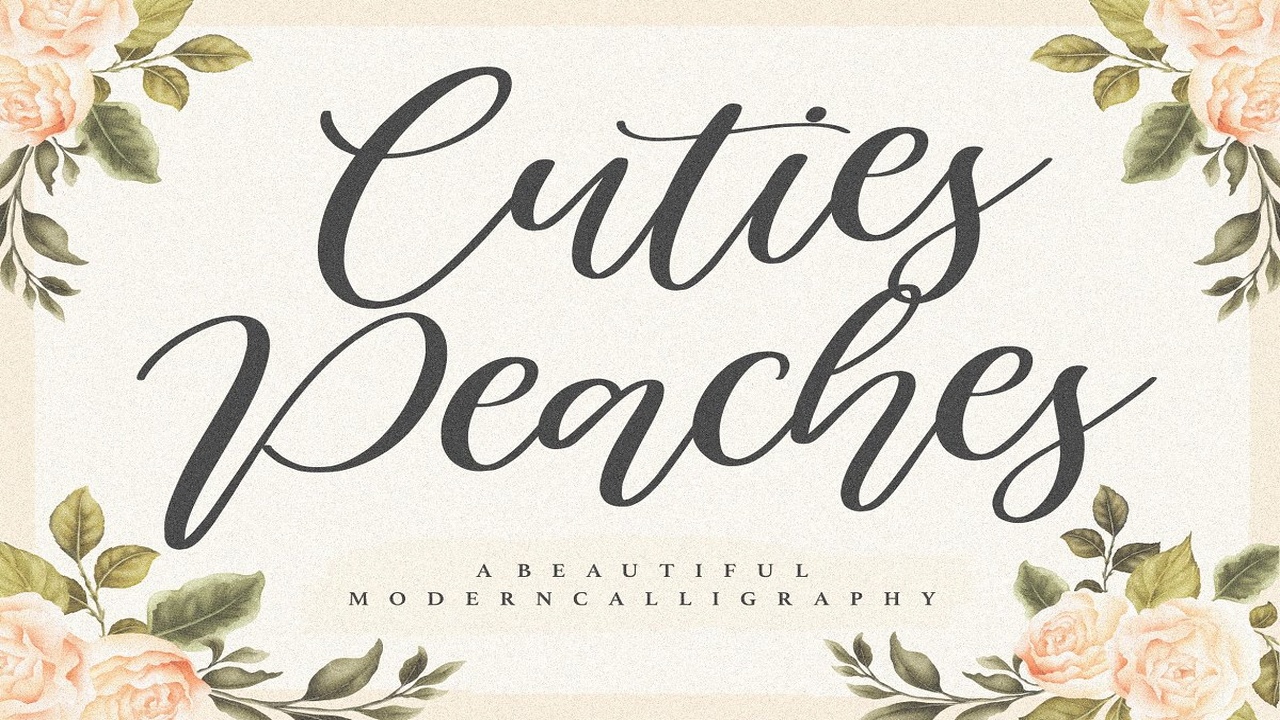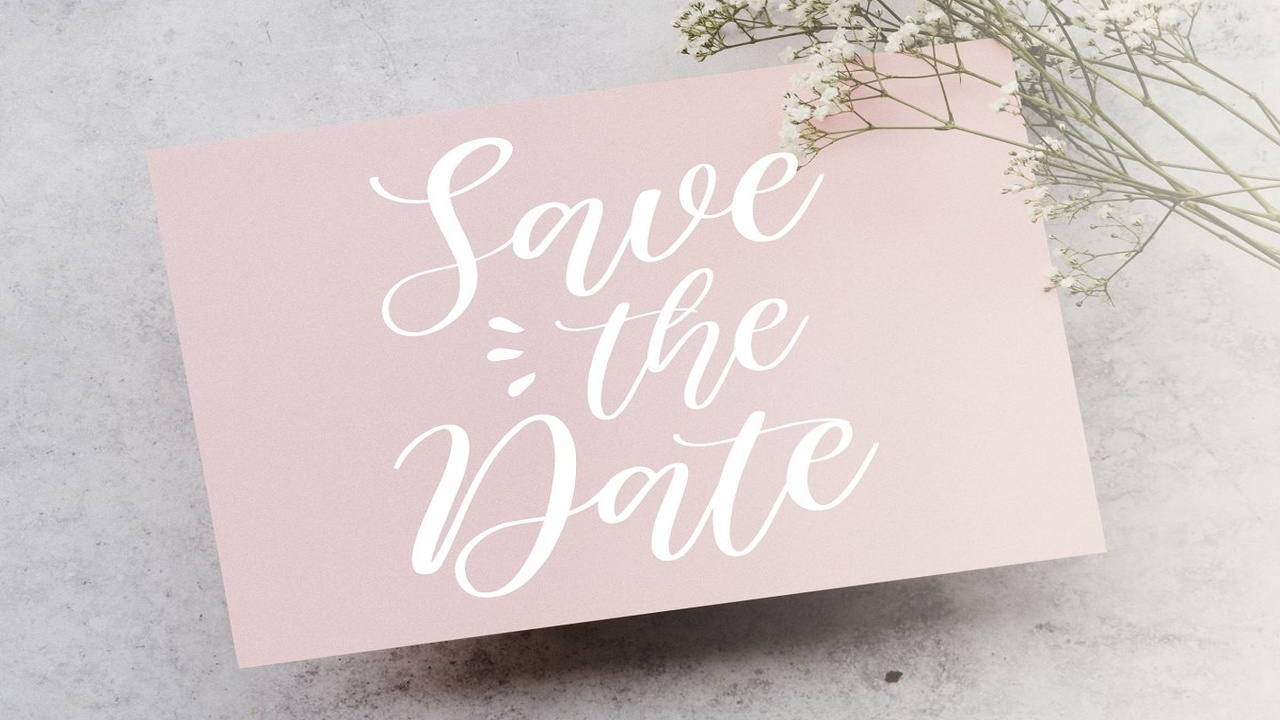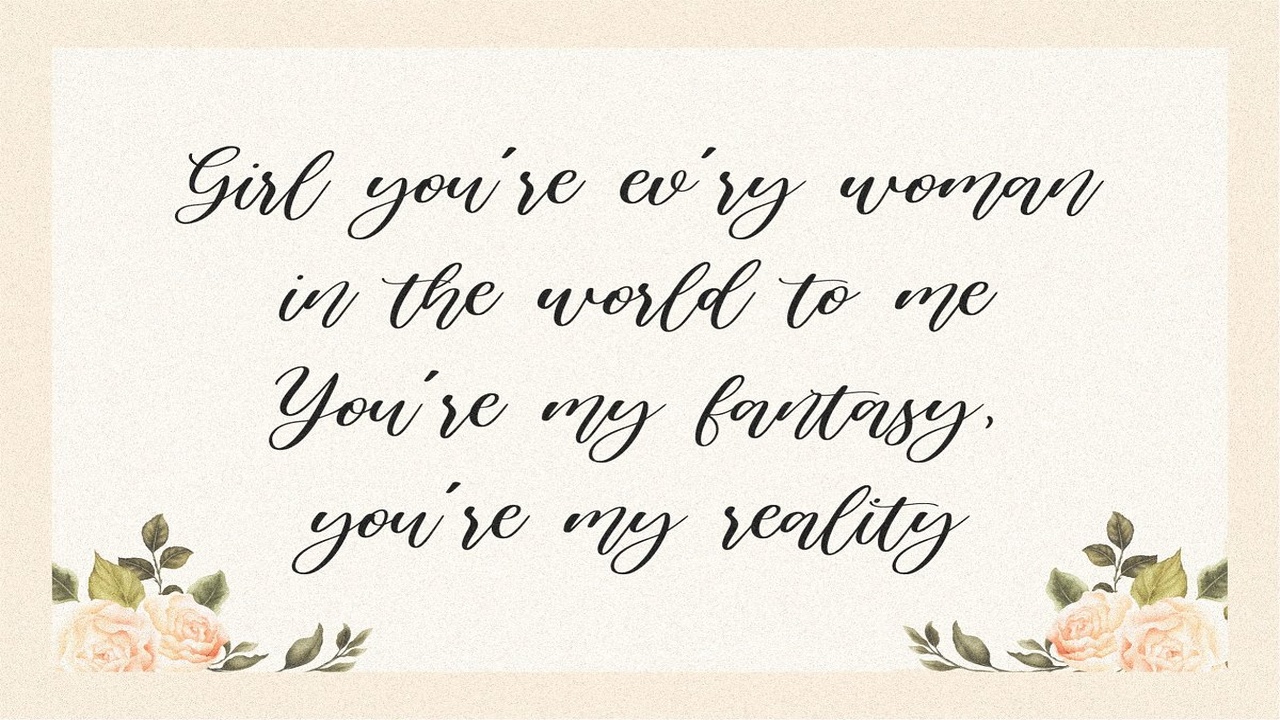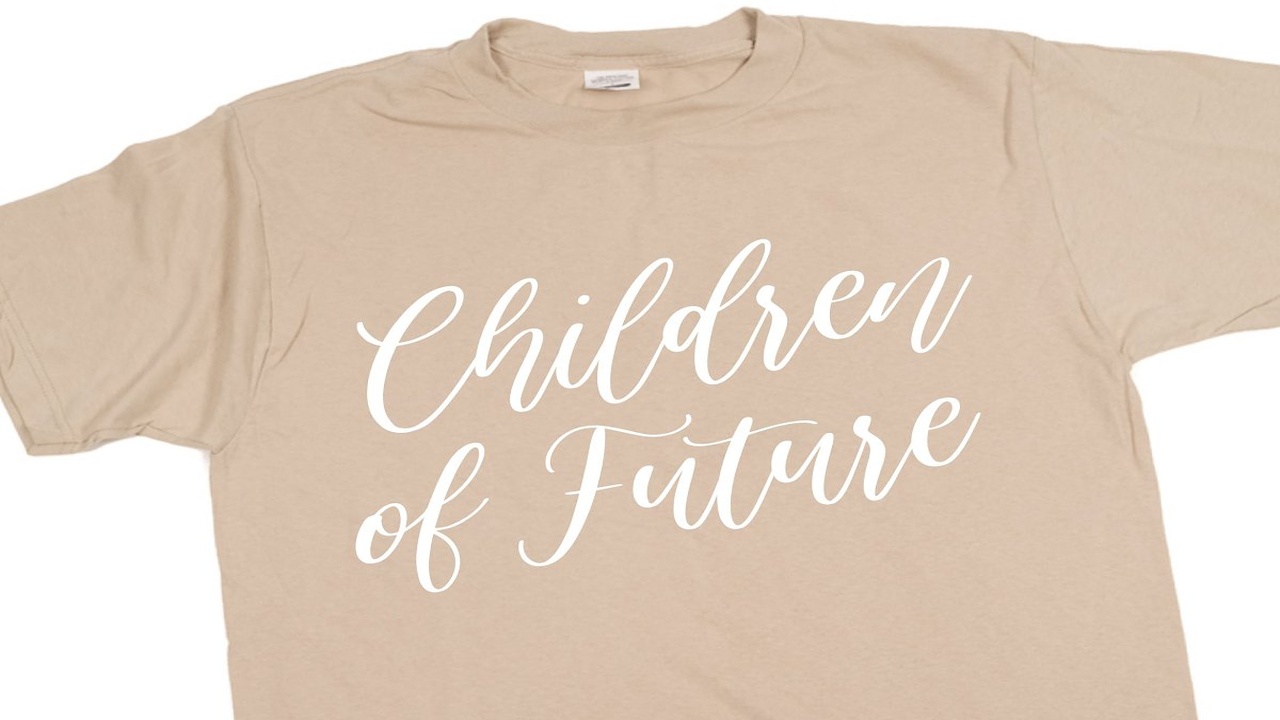
About the Cuties Peaches Modern Calligraphy Font
Proudly Present, Cuties Peaches FontCuties Peaches is an incredibly distinct, delicate and timeless handwritten font, It looks stunning on wedding invitations, thank you cards, quotes, greeting cards, logos, business cards and every other design which needs a handwritten touch, This font includes TTF, OTF and WOFFalso multilingual supportEnjoy the font, feel free to comment or feedback, send me PM or email